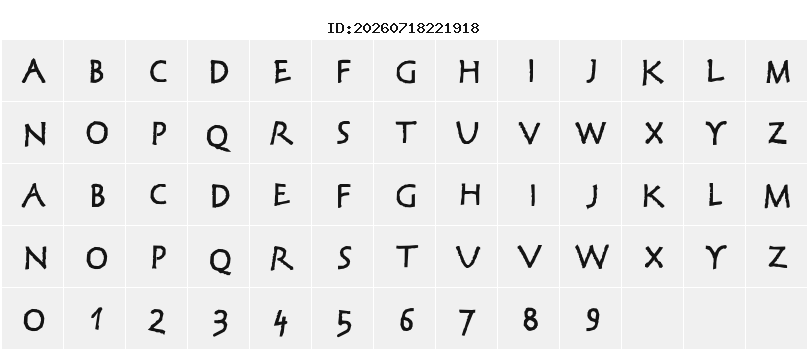
• Font Name: CorrodetClassicaps-Black
• Full Font Name: CorrodetClassicaps-Black
About CorrodetClassicaps-Black.ttf
CorrodetClassicaps-Black.ttf is a modern, elegant sans-serif font designed for ultimate readability and visual harmony. Perfect for branding, headlines, web design, and print materials.